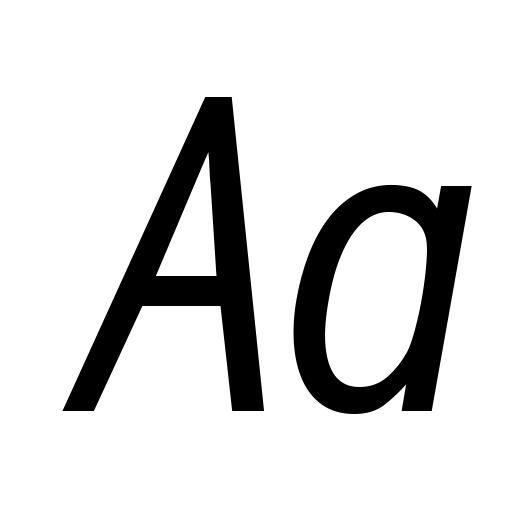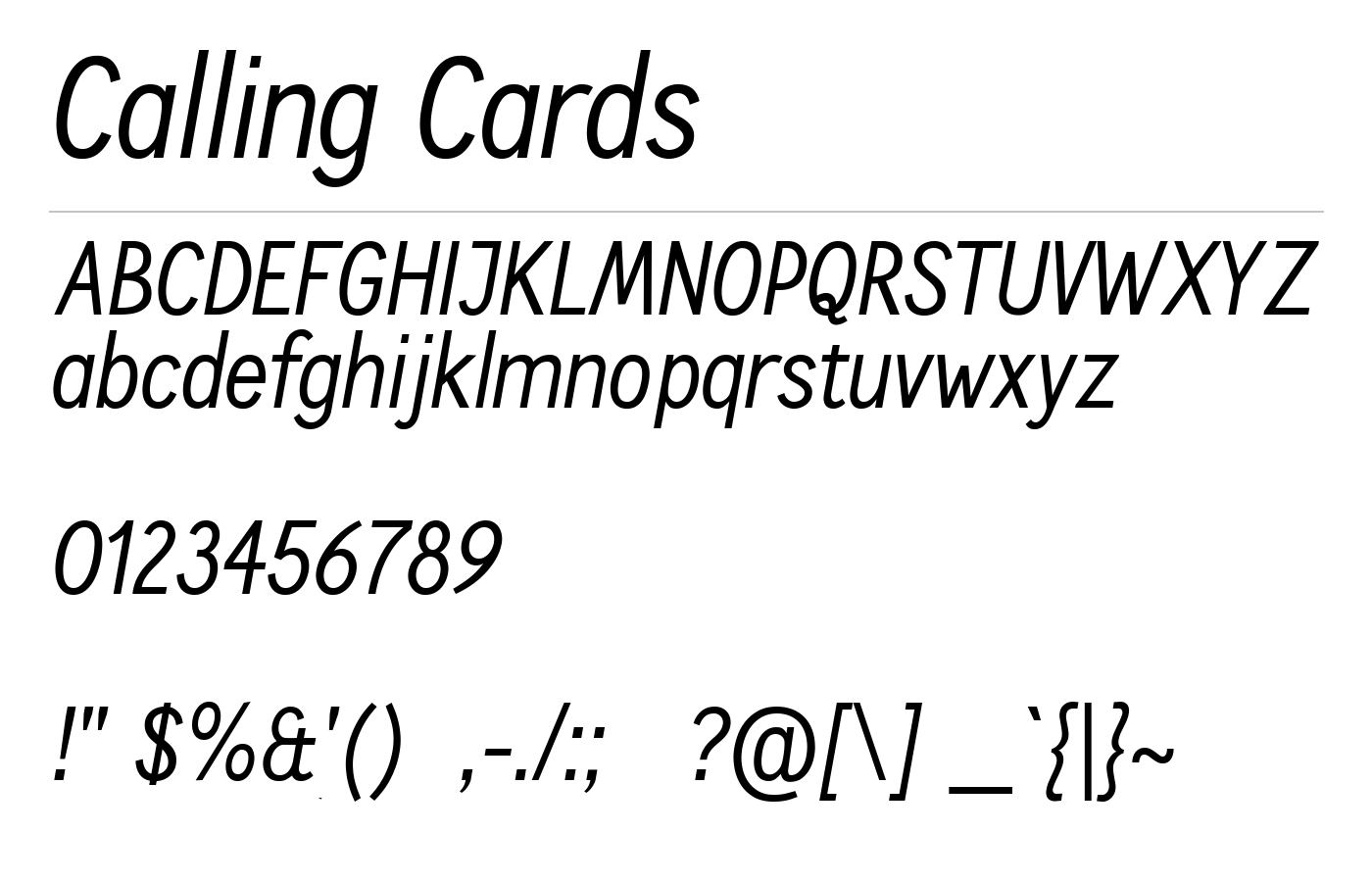
Calling Cards is a sleek, modern sans serif font characterized by its condensed, italicized style with a clean, streamlined appearance. Its moderate stroke contrast and open, airy letterforms make it ideal for contemporary branding and editorial design, lending a sense of sophistication and motion without sacrificing readability. This font works well for stylish headlines, logos, and packaging where a dynamic yet elegant look is desired.
Calling Cards Font
About Calling Cards Font
| Font family | Calling Cards Font |
| Designer | Ana Parracho |